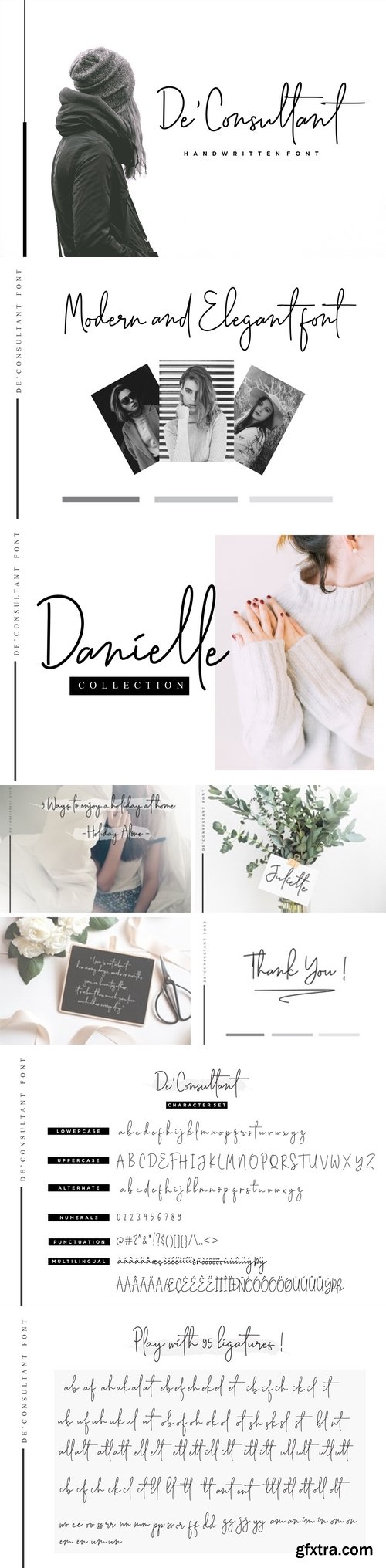
De’Consultant is a modern and fashionable script crafted in a signature style, making it ideal for use in fashion and editorials. This font includes a full set of characters and ligatures, giving you the ability to simulate hand-lettered style.